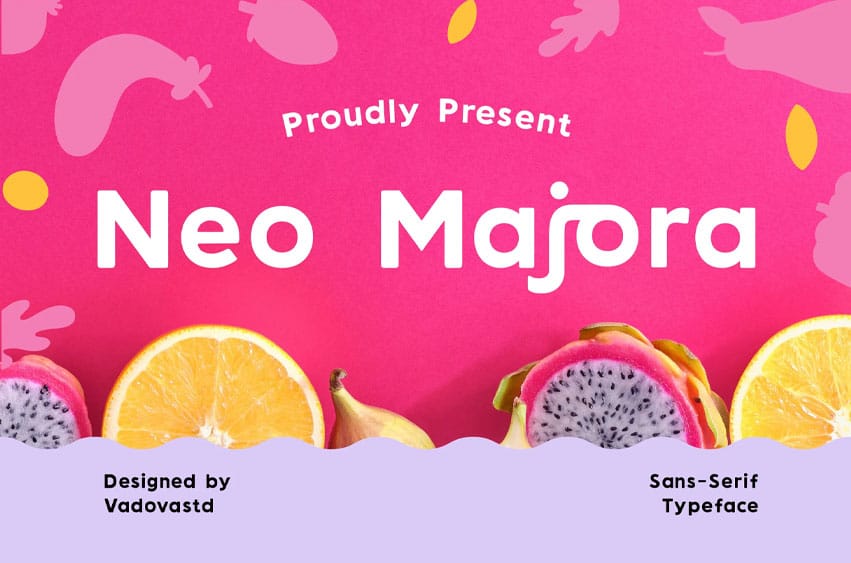
Neo Majora Font is a cheerful and bold sans-serif typeface designed for eye-catching packaging and fresh brand identities. With its rounded, approachable letterforms and modern structure, it shines in food labels, fruity drink branding, posters, and children’s products. The font delivers a fun and lively aesthetic that’s perfect for health-conscious campaigns, supermarket promotions, and any visual needing a juicy splash of energy and clarity. Neo Majora makes your message pop with flavor and friendliness.